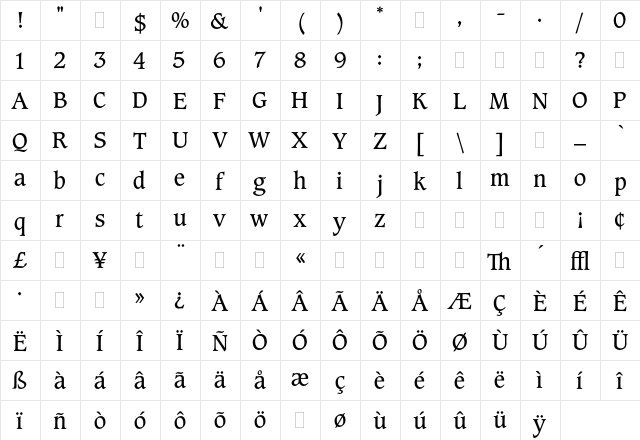
Caxton Roman Book Plain
Design Context for Caxton Roman Book Typeface
Caxton Roman Book is a composed and adaptable typeface that performs quietly and consistently across a wide range of design contexts.